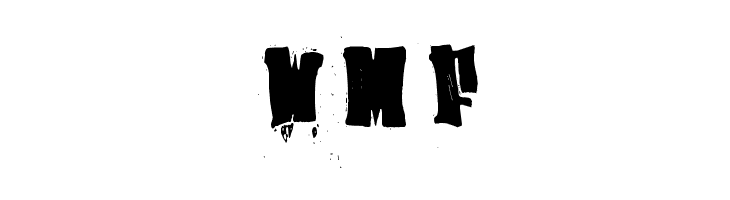
Bleeding Cowboys Font
A decorative, distressed font with elaborate swirls and a grungy appearance.
A bold, Gothic-inspired font with intricate, angular designs and sharp serifs.
Hyundai Normal Font
A bold, geometric font with a modern and industrial feel.
UniSansHeavyItalicCAPS Font
A bold, italic sans-serif font with a modern and dynamic style.
LoveloBlack Font
A bold, modern font with geometric lines and strong visual impact.